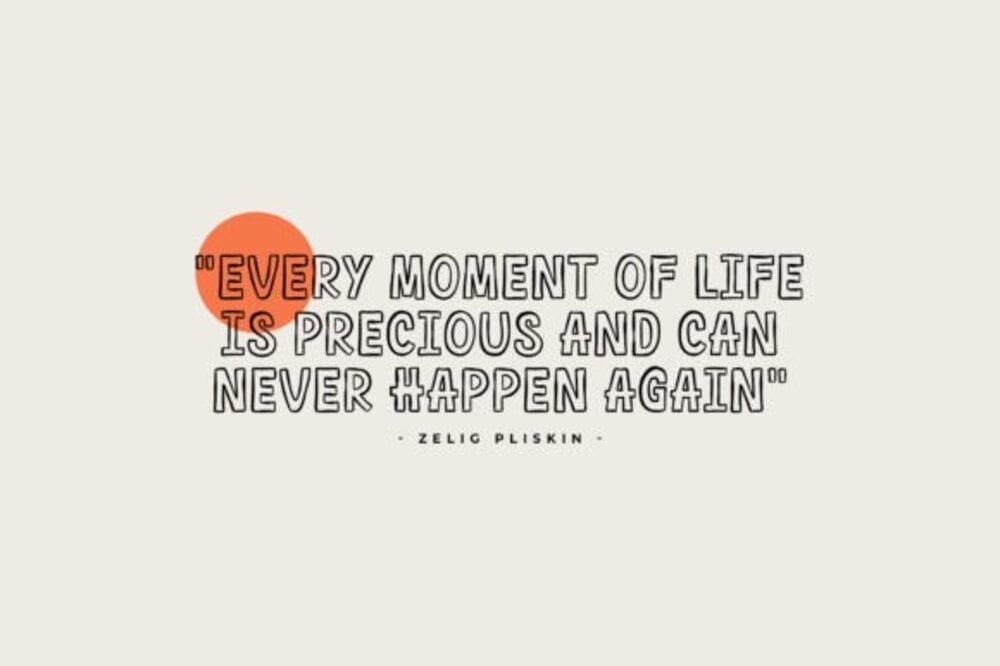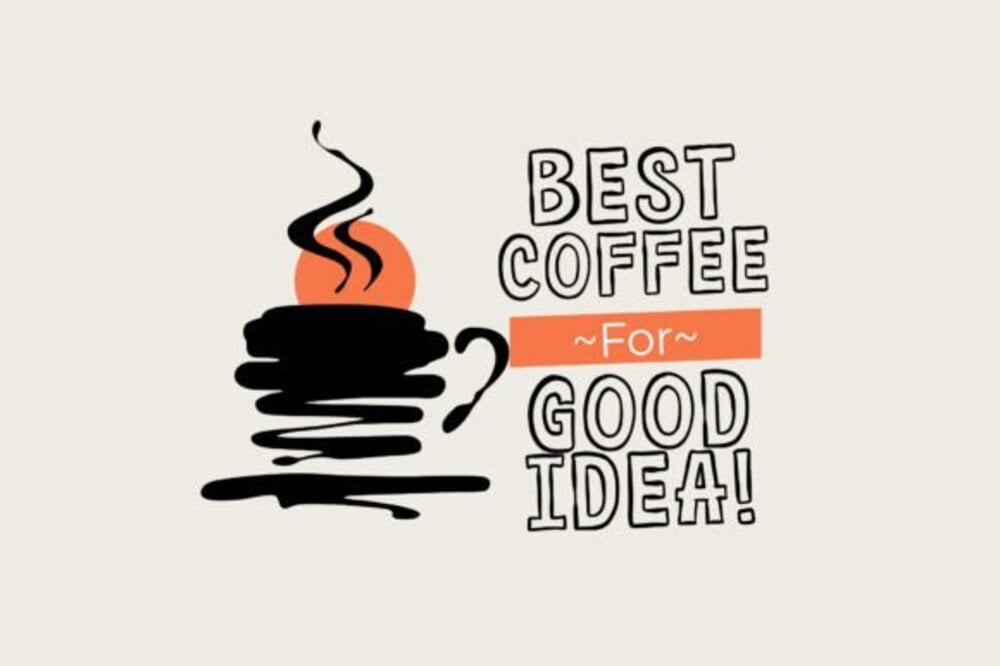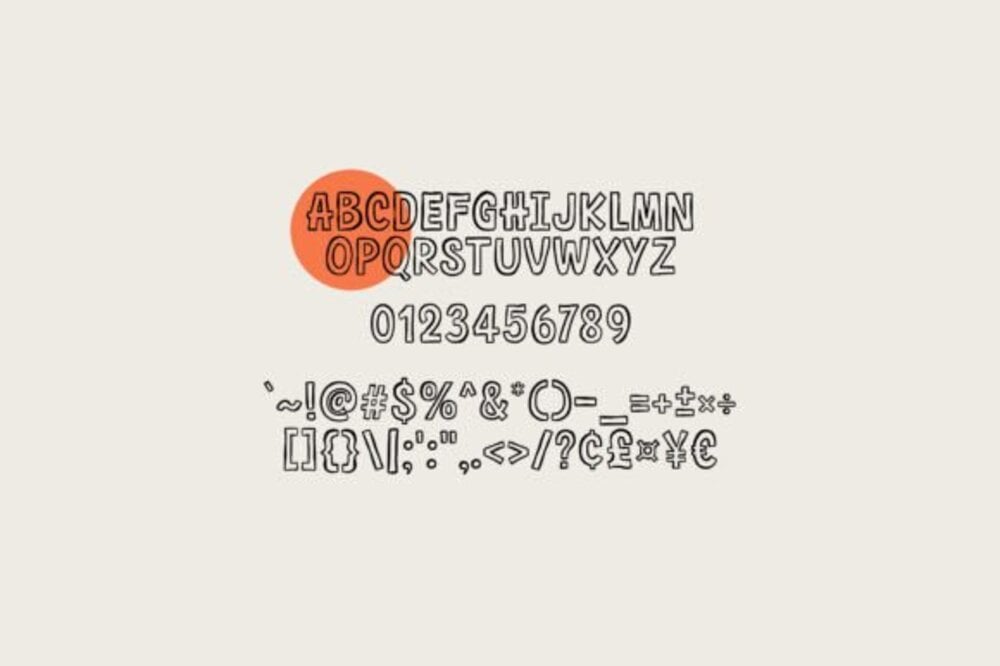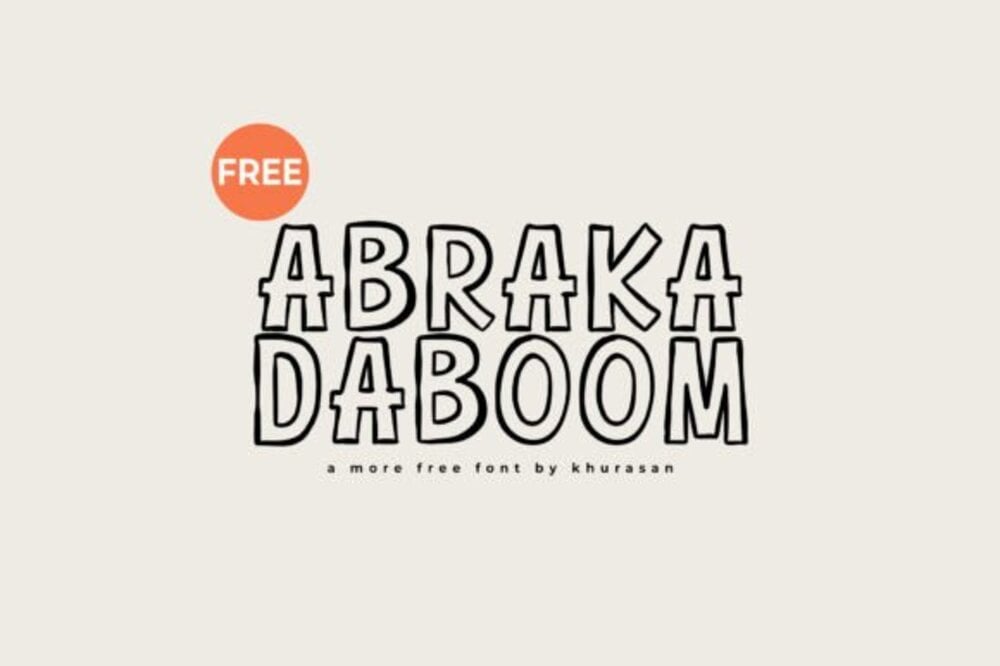
Abrakadaboom Font
Abrakadaboom is a magical and explosive font bursting with playful energy and whimsy. Its bold, cartoonish letters and dynamic shapes make it perfect for comic books, children’s projects, party invitations, or any design needing a touch of fun. This lively typeface adds a sense of wonder and excitement, making your text stand out with a spellbinding, unforgettable flair.